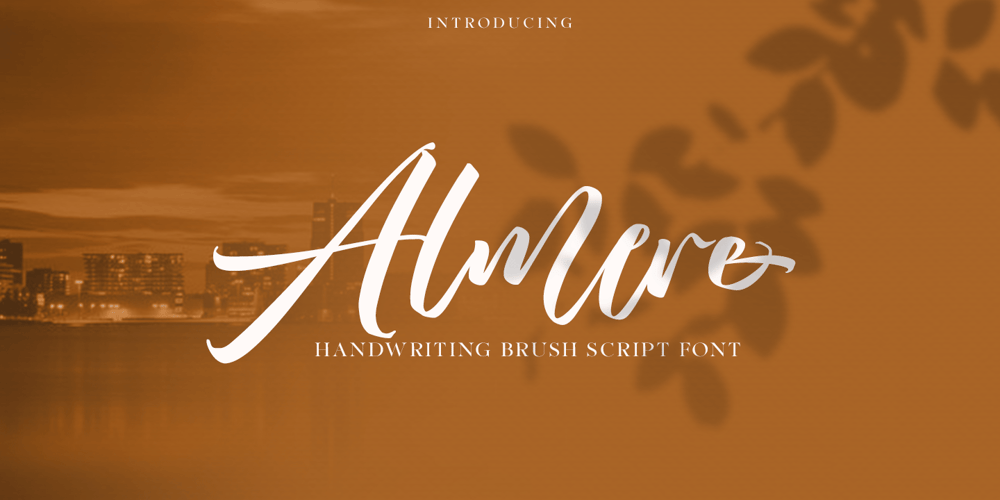
Almere Script
Almere Script font
Almere Script Font Family was designed by Joelmaker and published by Joelmaker. Almere Script contains 1 styles and family package options. Almere Script, is a manual handwriting font with using a brush pen, which are arranged very neatly, so that it makes a font script, with a shape like a wavy calligraphy, modern, unique, smooth & cleans. Almere Script, can be used for various purposes such as Magazine Title, Poster, Logo, T-Shirt, Sub Title, Business cards, Magazines, Book Covers, Wedding Invitations,Templates Instagram Story Post, Greeting Cards, Quotes, etc. Almere Script, allows you to create custom dynamic text. you can access by turning on; Stylistic Alternates, as well as ligatures in Photoshop, Adobe Illustrator, Adobe InDesign or through a panel of glyphs such as Adobe Illustrator, Photoshop CC, Let’s switch from the reguler character into character alternative to get the text with the layout of your dreams.